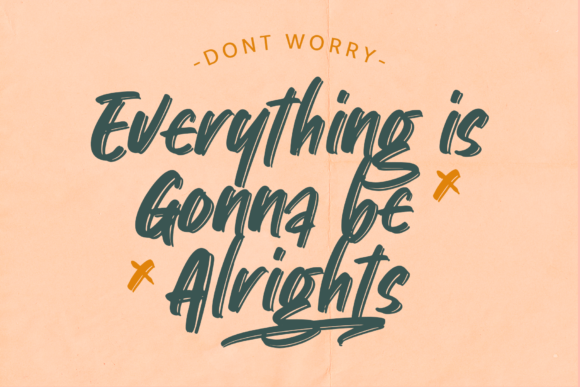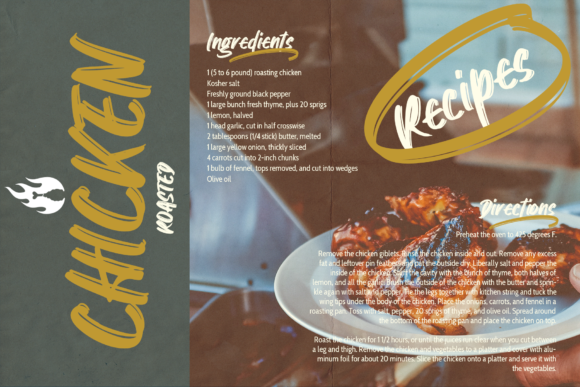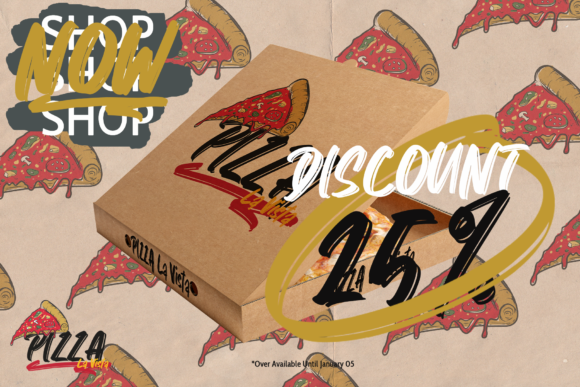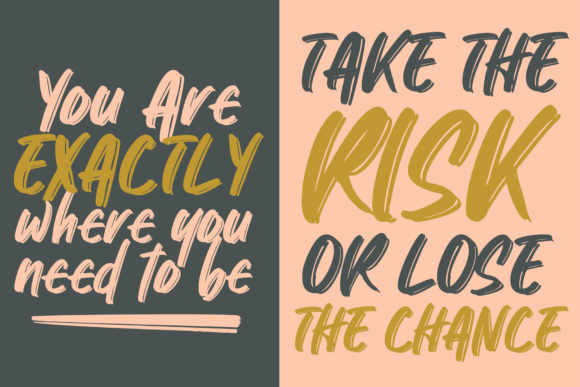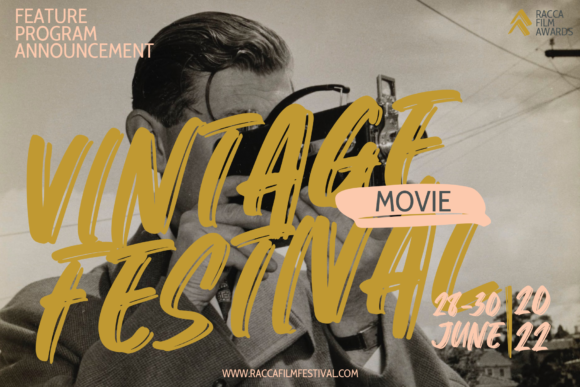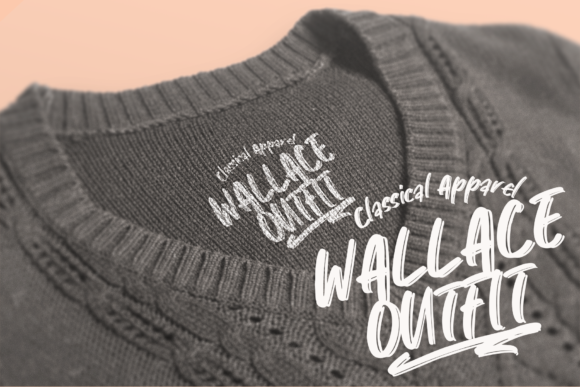
Introduction to Old Stringrays Font
Old Stringrays is a lovely and flowing handwritten font, created with the help of a brush pen.
Fall in love with its incredibly versatile style and use it to create gorgeous wedding invitations, beautiful stationary art, eye-catching social media posts, and much more .
Key Features of Old Stringrays Font
Old Stringrays Font offers exceptional quality and versatility, making it a valuable addition to your design toolkit. Whether you’re creating for personal projects or commercial use, Old Stringrays Font delivers professional results.